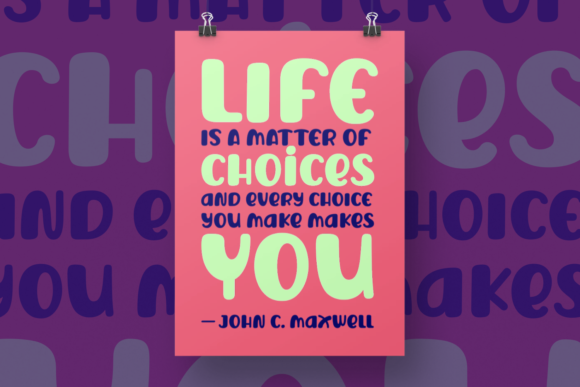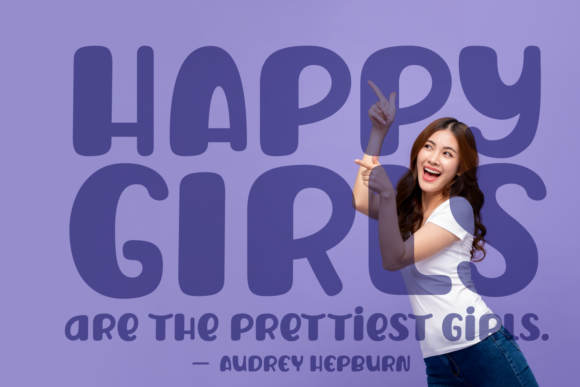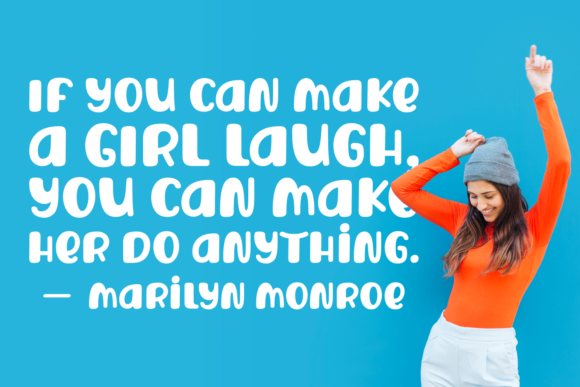
Introducing Choose Without Choices Font: Elevate Your Designs with a Friendly and Cute Display Font
Are you tired of using the same old fonts for your design projects? Look no further! Choose Without Choices Font is here to revolutionize the way you approach typography. This great display font features an incredible friendly look and cute characters that will take your designs to the highest level. Whether you’re working on branding, headings, wedding designs, invitations, signatures, logos, labels, or any other project, Choose Without Choices Font is the perfect choice.
What Makes Choose Without Choices Font Stand Out?
So, what sets Choose Without Choices Font apart from other fonts? Here are a few key features that make it a standout:
• Unique and Friendly Design: Choose Without Choices Font boasts a one-of-a-kind design that’s both friendly and approachable. Its unique character set will add a touch of personality to your designs.
• Cute Characters: The font features adorable characters that will make your designs stand out. From uppercase letters to lowercase letters and numbers, every character is designed with cuteness in mind.
• High Versatility: Choose Without Choices Font is incredibly versatile and can be used for a wide range of design projects. Whether you’re working on a logo, invitation, or social media graphic, this font will adapt seamlessly.
Choose Without Choices Font is a dream come true for designers and crafters. Its friendly and cute design makes it perfect for:
• Branding: Create a lasting impression with your brand’s typography. Choose Without Choices Font is perfect for logos, business cards, and letterheads.
• Wedding Designs: Add a touch of whimsy to your wedding designs, including invitations, programs, and place cards.
• Invitations: Create eye-catching invitations for parties, events, and gatherings.
• Signatures: Elevate your email signatures or social media profiles with a personalized touch.
• Logos: Design unique and memorable logos for your clients or business.
• Labels: Add a creative touch to your product labels or packaging.
Why Choose Choose Without Choices Font?
With so many fonts available, why should you choose Choose Without Choices Font? Here are a few compelling reasons:
• Easy to Read: Despite its unique design, Choose Without Choices Font is incredibly easy to read, making it perfect for body text and headings.
• High-Quality Design: The font is designed with high-quality and precision in mind, ensuring that it looks great in any design.
How to Use Choose Without Choices Font
Using Choose Without Choices Font is easy! Here are a few tips to get you started:
• Pair it with Other Fonts: Experiment with pairing Choose Without Choices Font with other fonts to create a unique typography style.
• Experiment with Sizes: Play around with different font sizes to add visual interest to your designs.
• Use it for Headings: Choose Without Choices Font is perfect for headings and titles. Use it to add a pop of personality to your designs.
In conclusion, Choose Without Choices Font is a game-changer for designers and crafters. Its unique and friendly design, cute characters, and high versatility make it the perfect choice for a wide range of design projects. Whether you’re working on branding, wedding designs, or social media graphics, this font is sure to elevate your designs to the highest level. So why wait? Download Choose Without Choices Font today and take your designs to new heights!